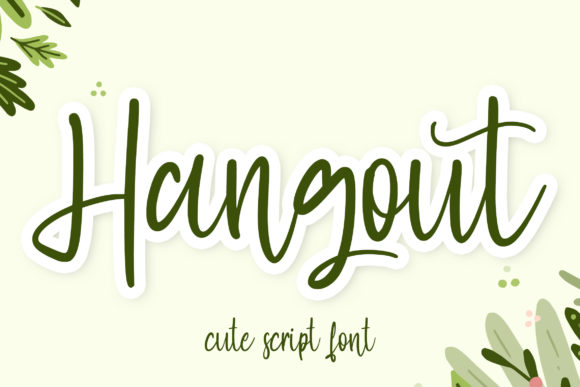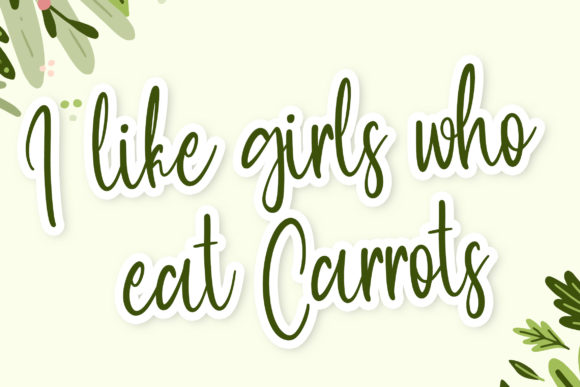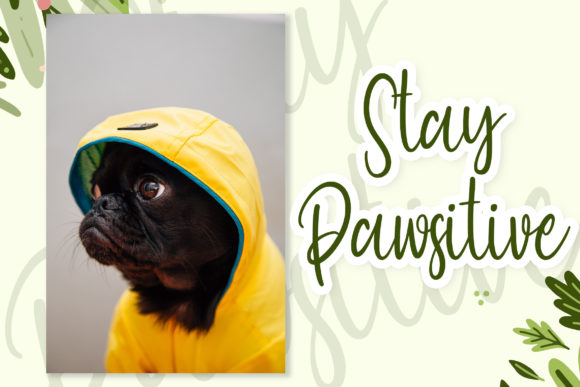
About Hangout Font
Hangout is a delicate and elegant handwritten font. Its distinct and well rounded letters make this font a masterpiece. Fall in love with its incredibly versatile style and use it to create spectacular designs!